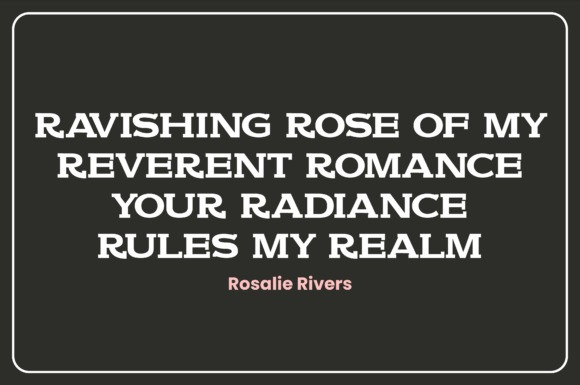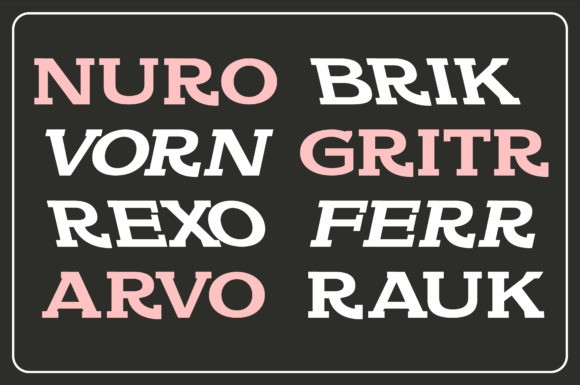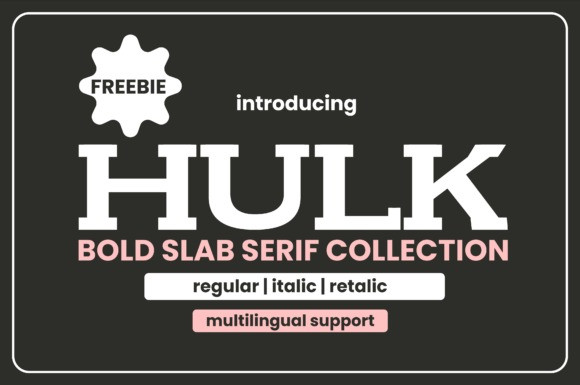
Hulk Slab Font
Hulk Slab Font is our powerful slab serif font collection. Named after their bold and striking design elements, this dynamic trio of fonts is presented in three styles: Regular, Italic, and Retalic, also known as “inverted italic.” The bold presence of these thick, bold fonts is perfect for creating impressive headlines, powerful titles, and memorable logos. Their authoritative presence resonates with fields like finance, technology, fashion, industrial, and classic themes where asserting a confident and unique identity is key. Whether you want to convey power or modern elegance, this font collection will be your perfect design companion.